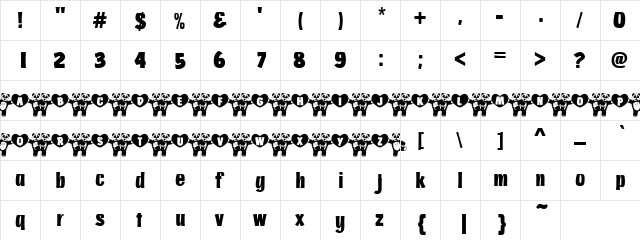
101! Panda's Dance Regular
Design Context for 101! Panda's Dance Typeface
101! Panda's Dance is a composed and adaptable typeface that performs quietly and consistently across a wide range of design contexts.